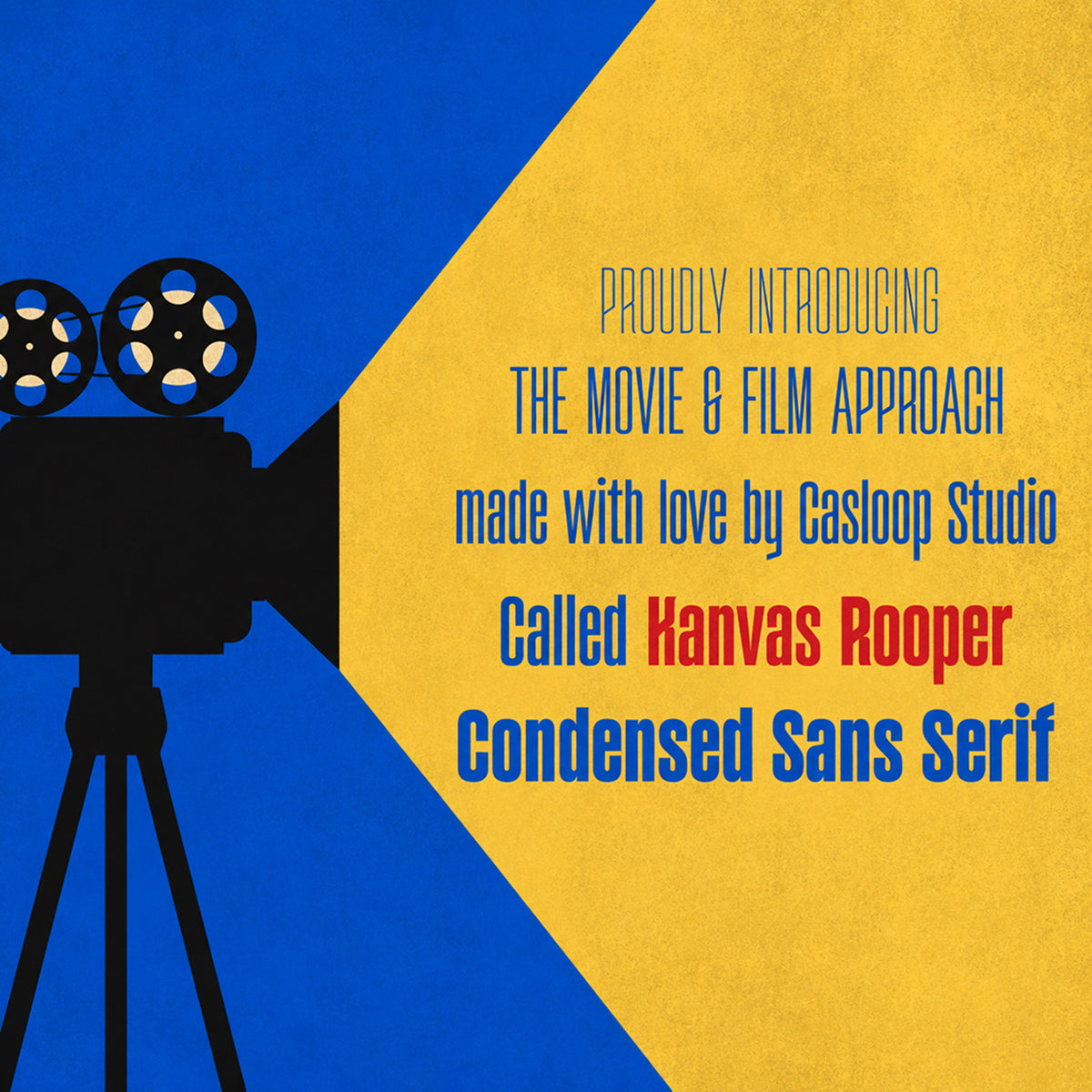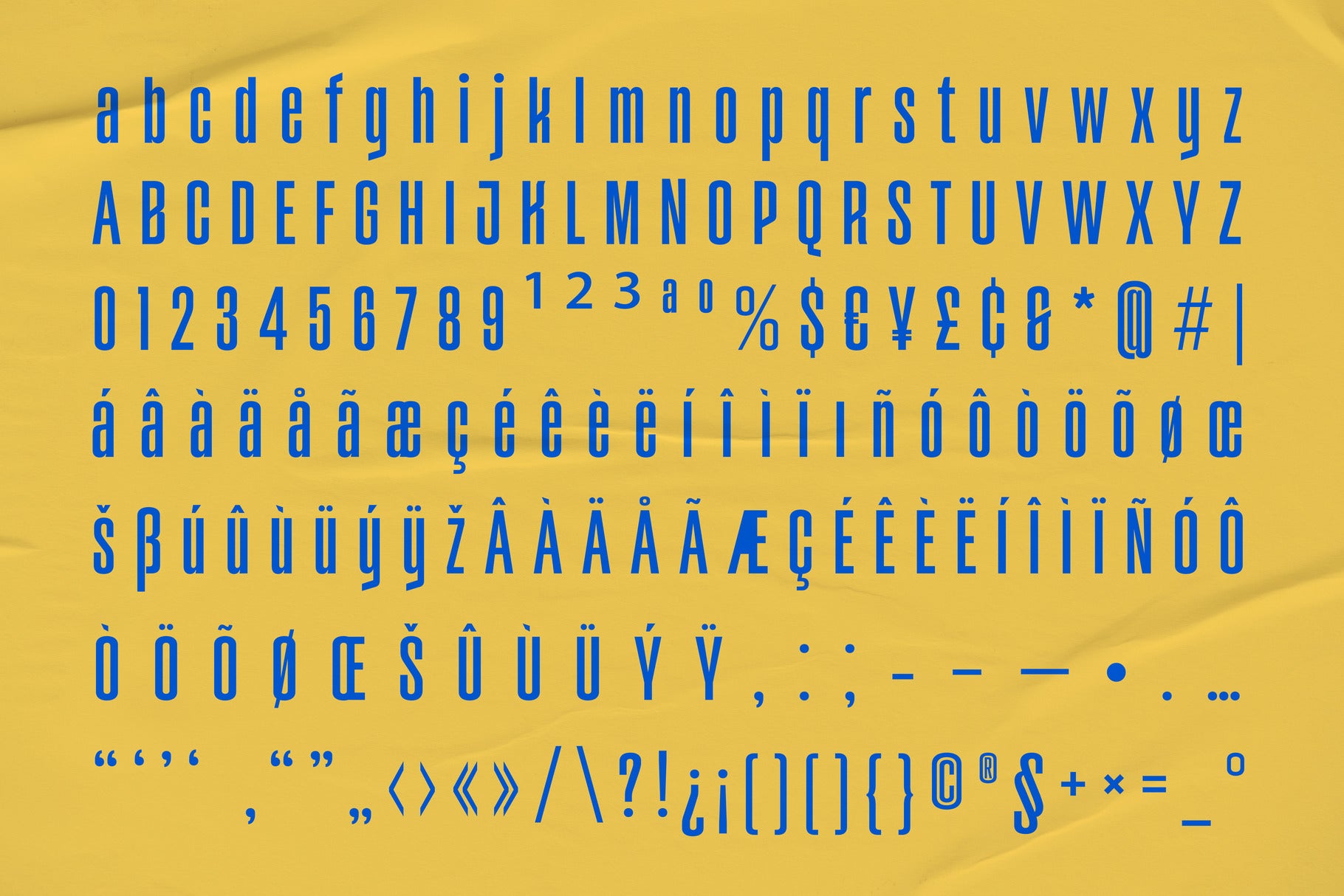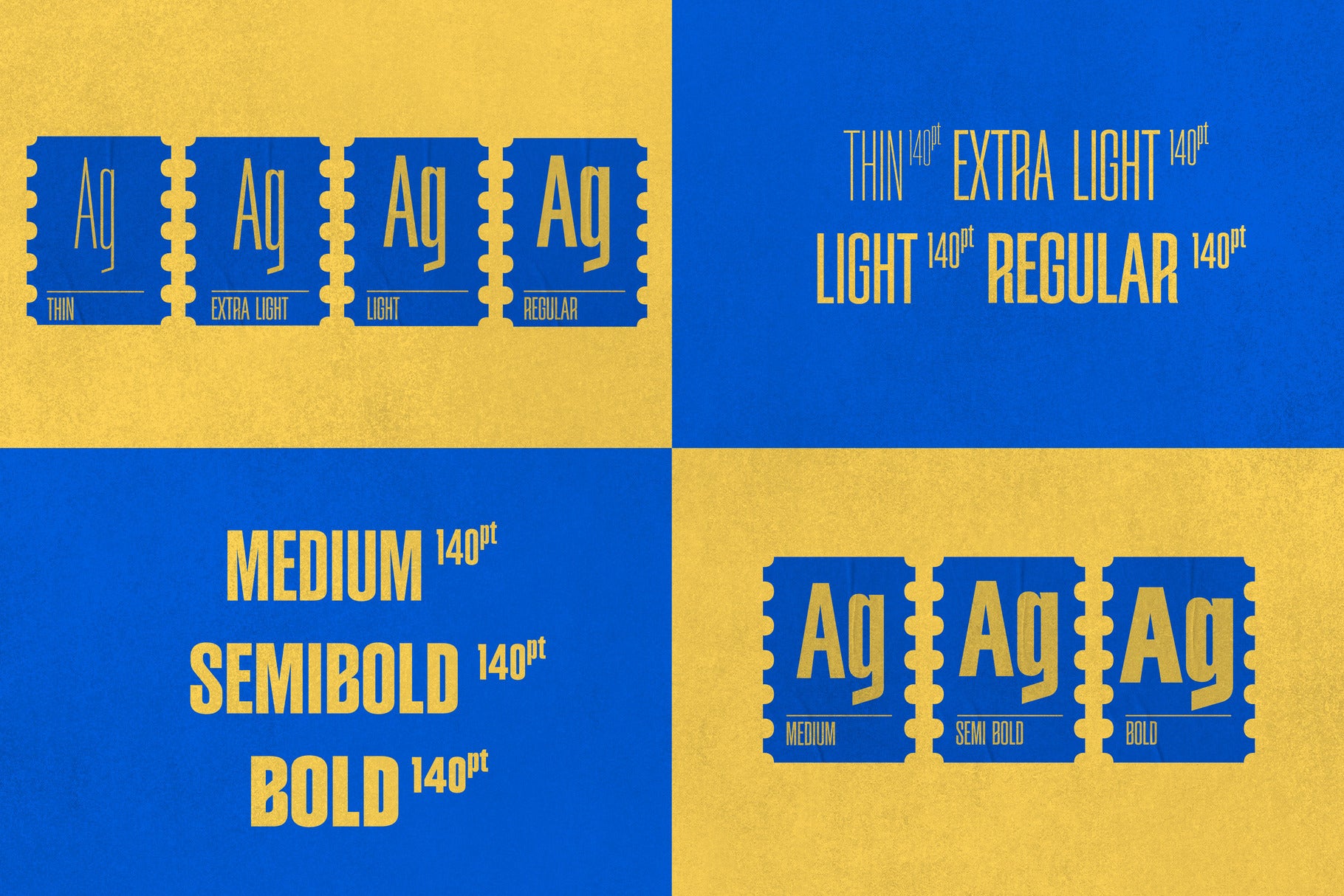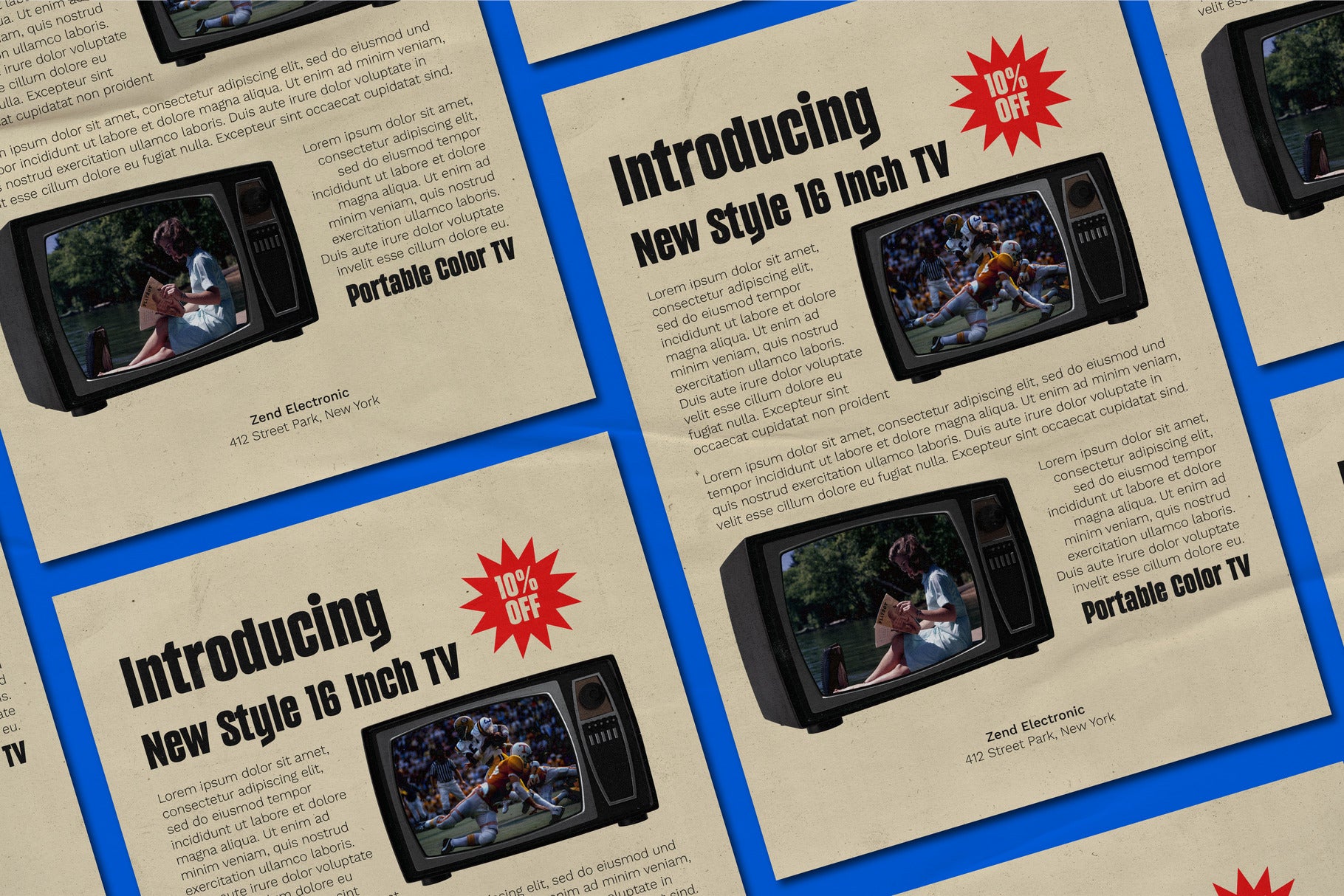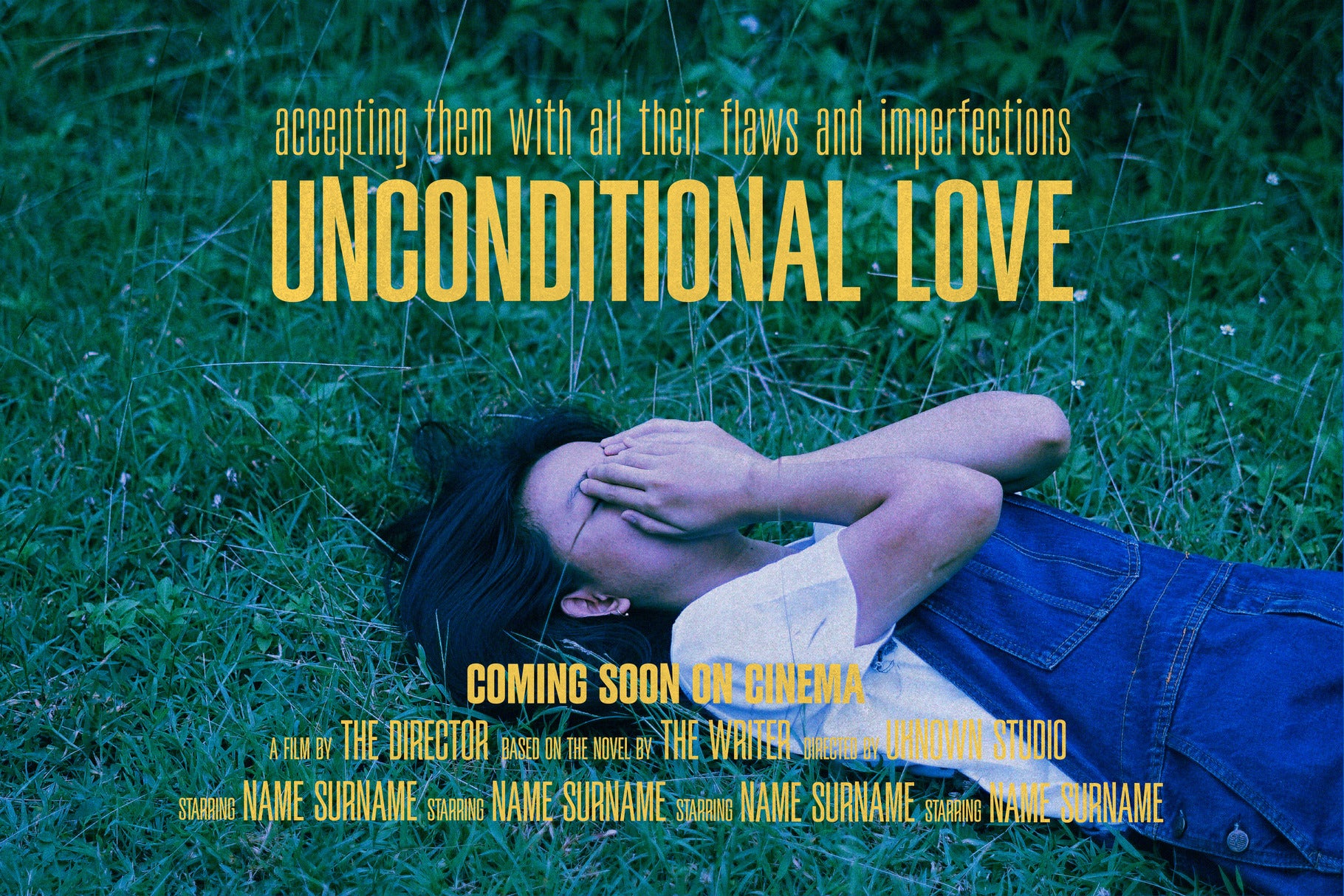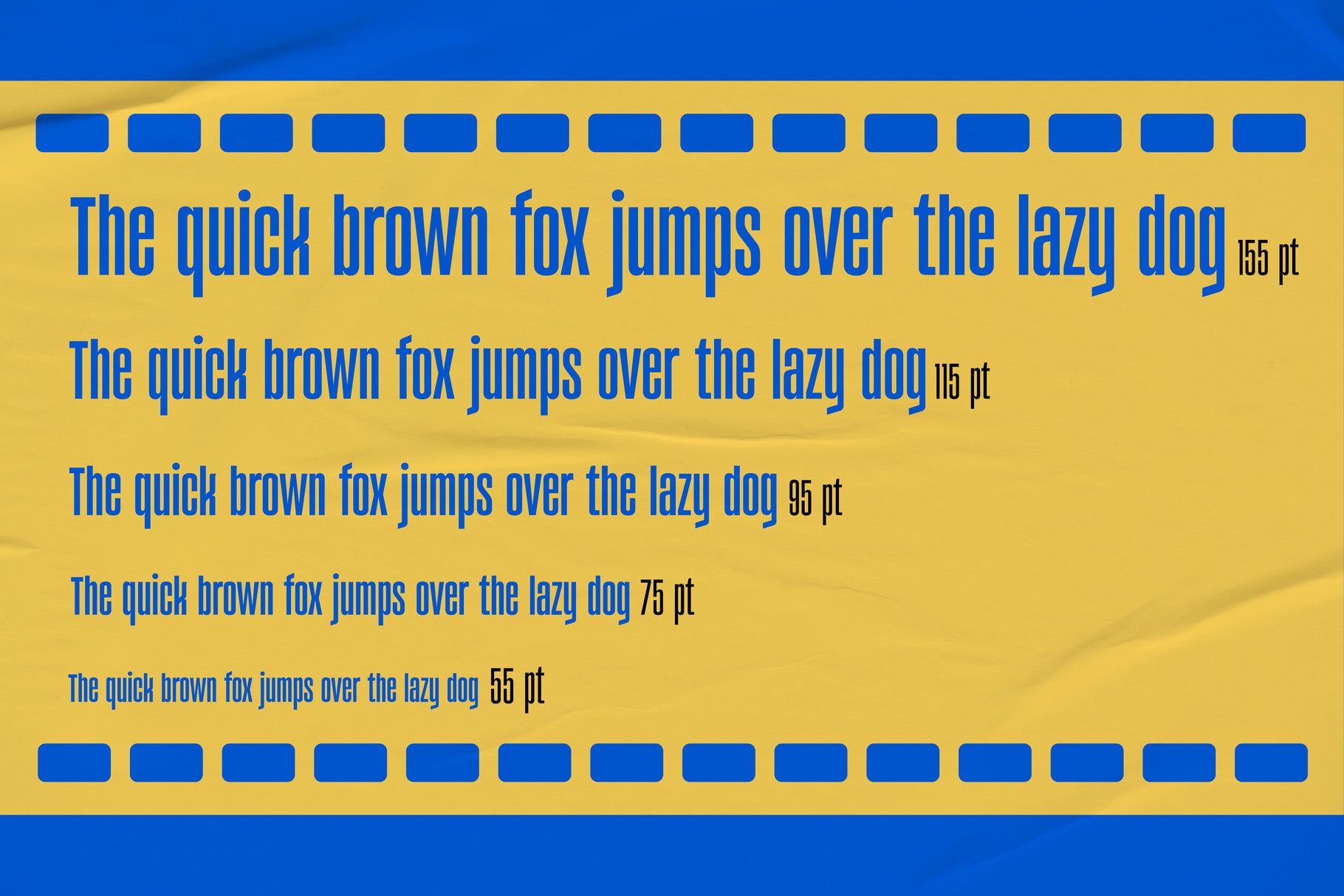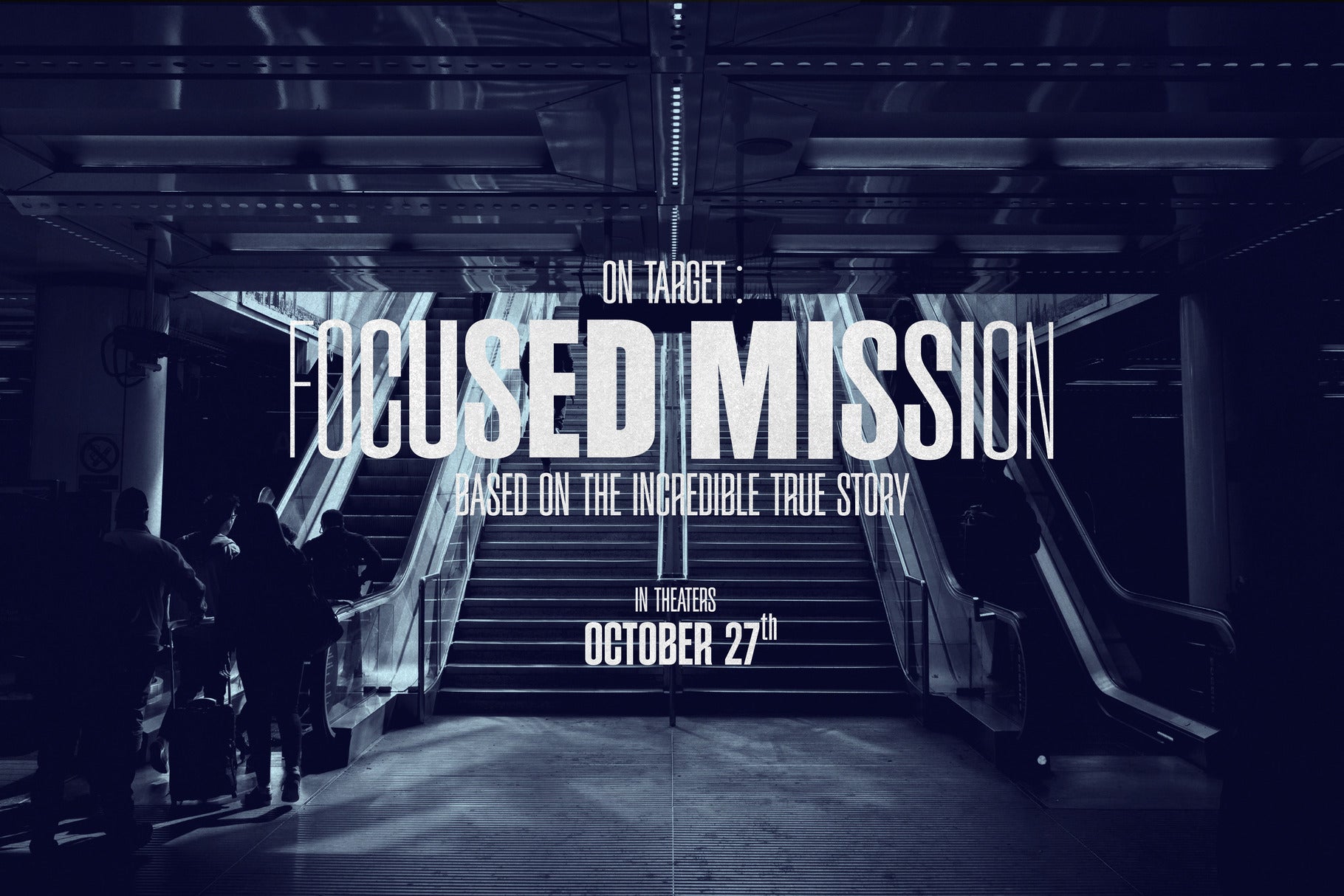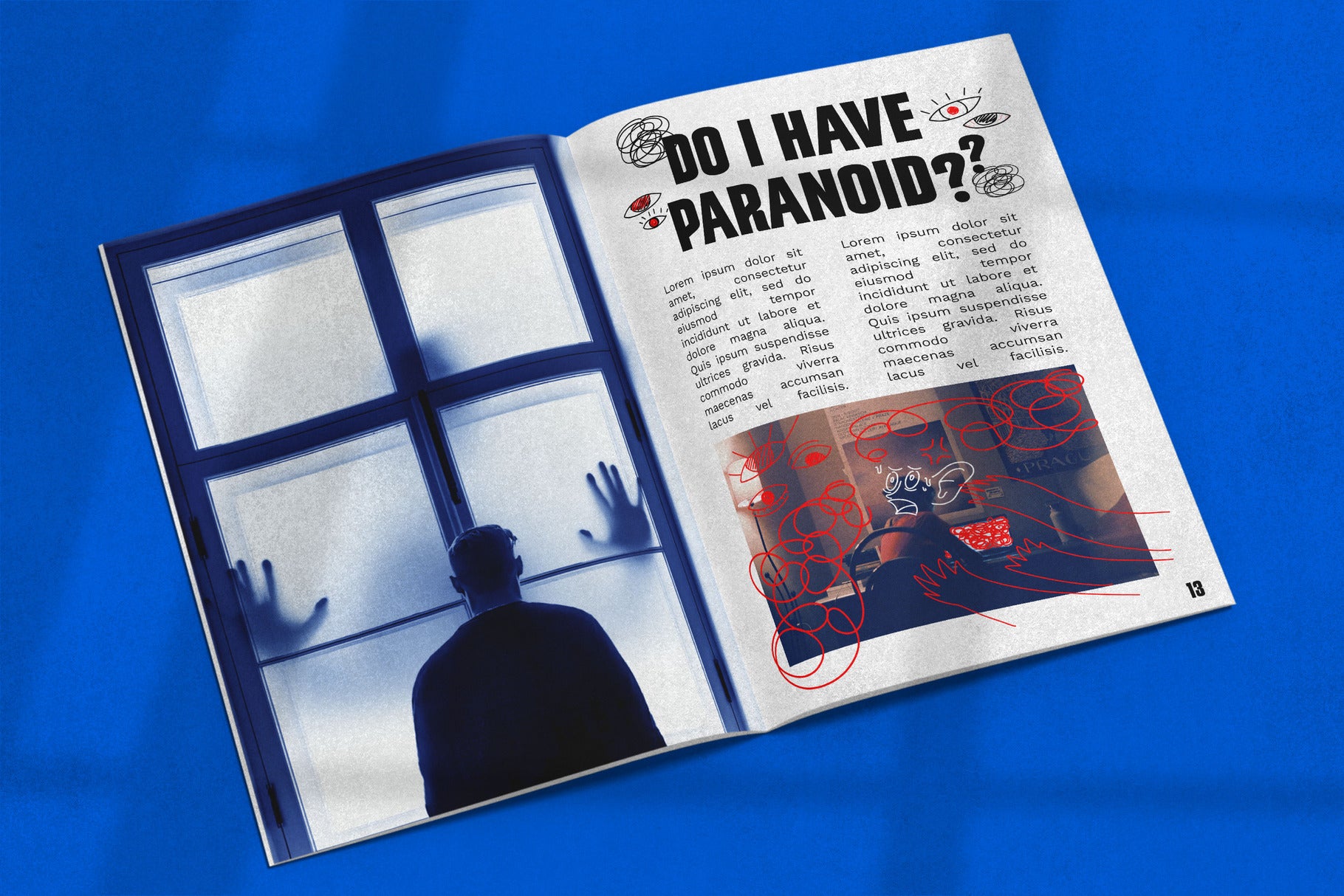
Kanvas Rooper Movie Display Fonts
Elevate Your Brand with Kanvas Rooper
The Film and Movie Typeface for Professional Excellence Presenting Kanvas Rooper, the Condensed Sans Serif font designed for businesses aiming for excellence. Tailored for impact, this typeface effortlessly captures attention and is perfect for projects demanding a touch of Brave and Bold Shape.
Key Features:
Brave and Bold Condensed Sans Serif Design: Immerse yourself in the sophistication of Kanvas Rooper's Condensed Sans Serif aesthetic, a favorite among business professionals.
Business Versatility: Ideal for a wide array of projects, ensuring your designs make a lasting impression.
Kanvas Rooper Movie Display Fonts is a condensed sans serif typeface designed for professional applications, featuring a bold and impactful aesthetic. Available in multiple formats (OTF, TTF, WOFF, WOFF2) and offering seven family members, it provides versatility for various design projects.